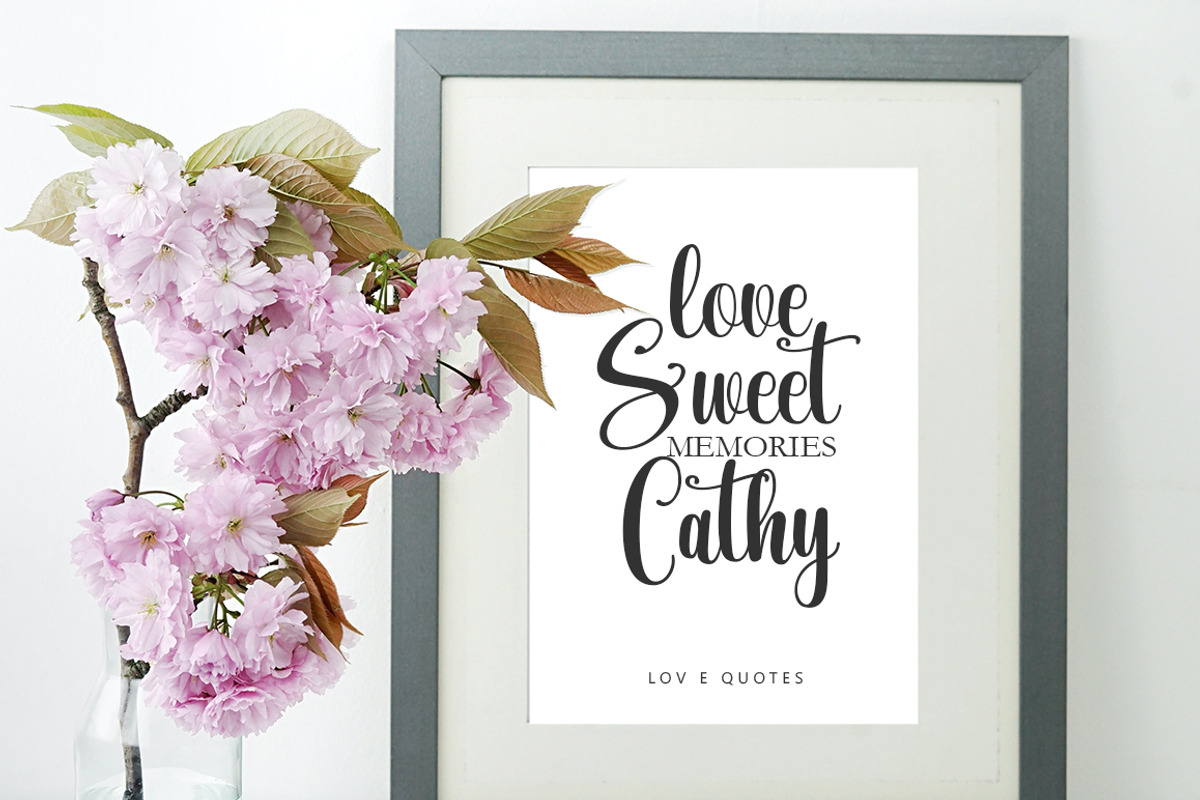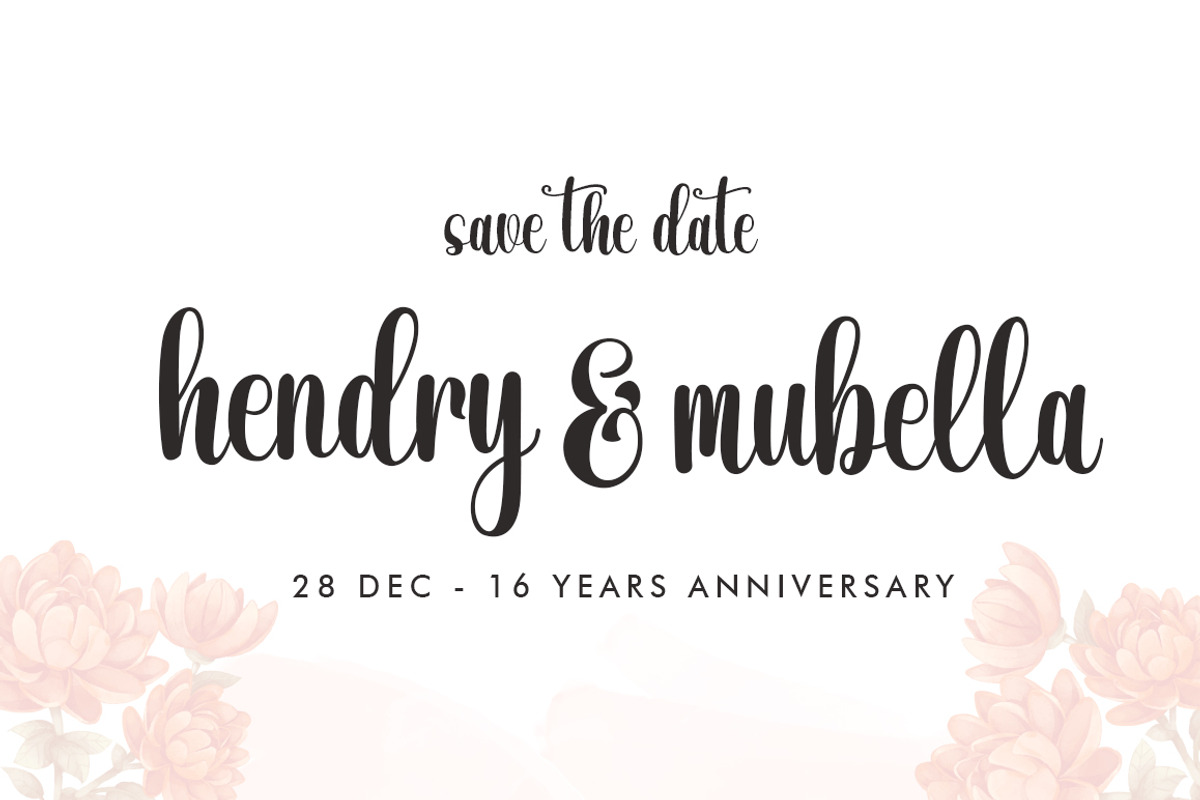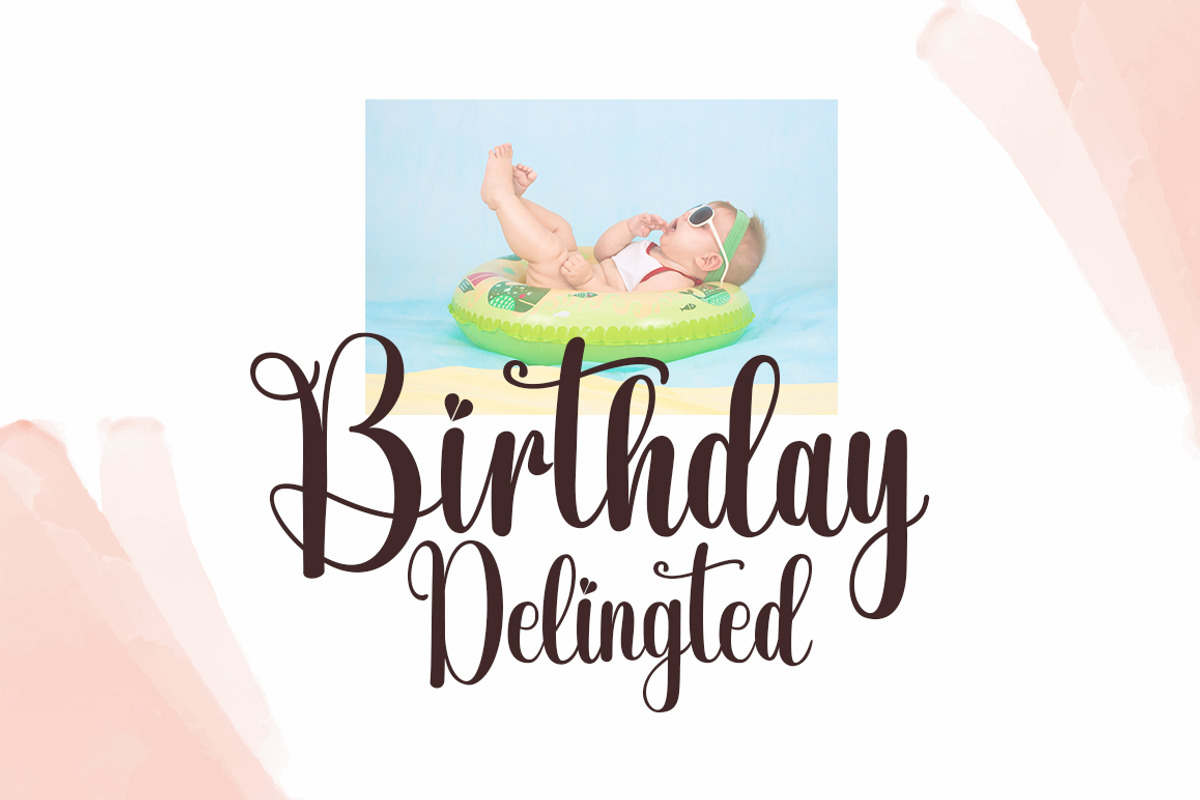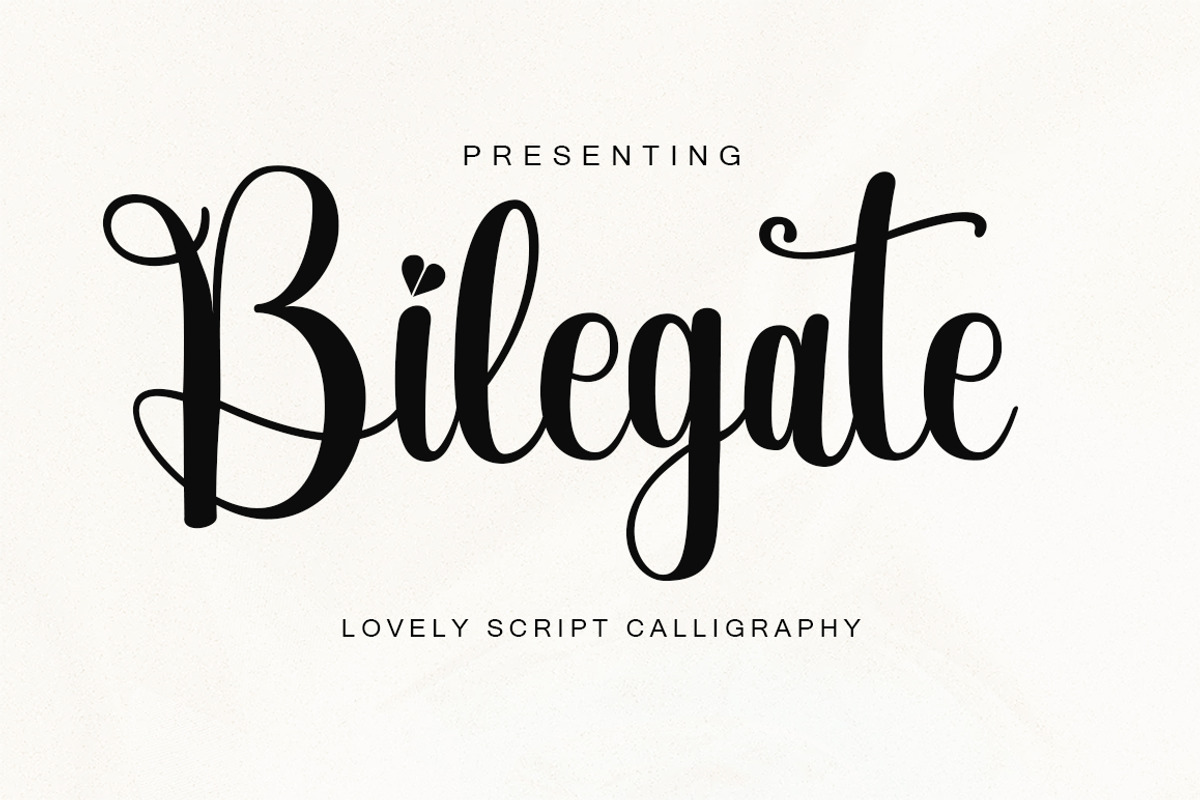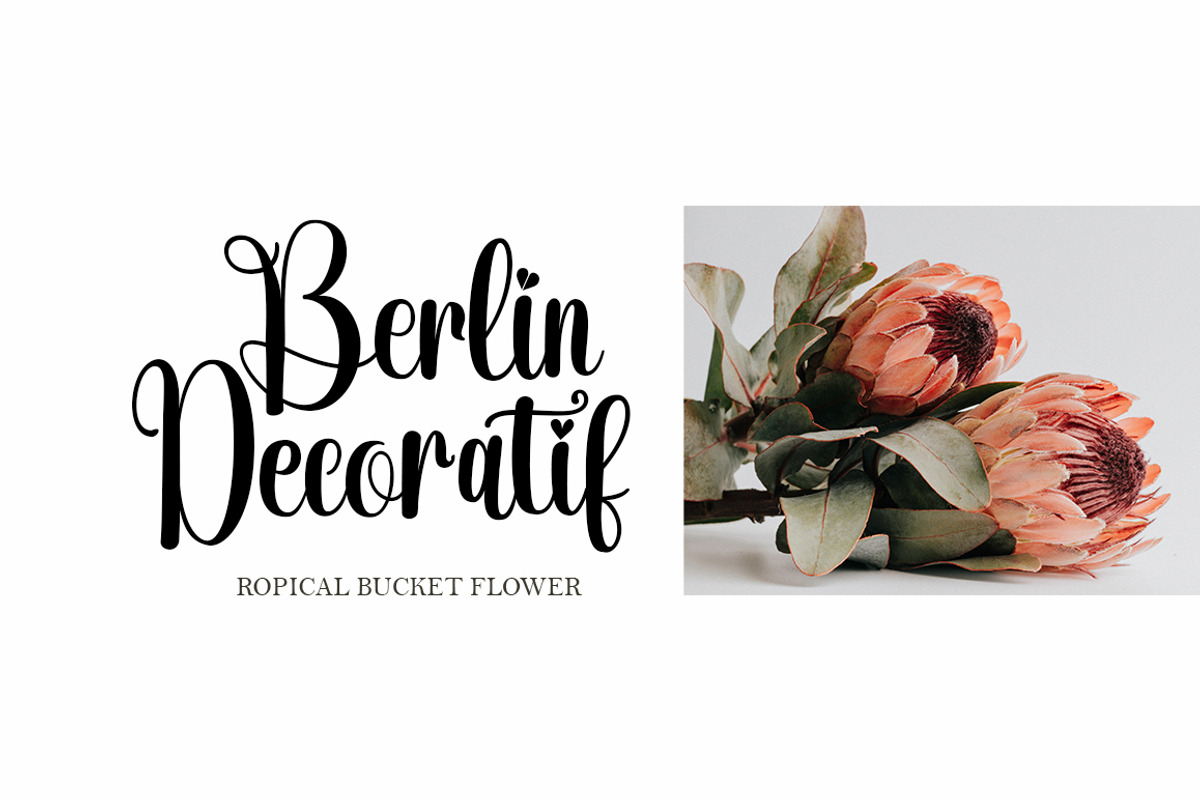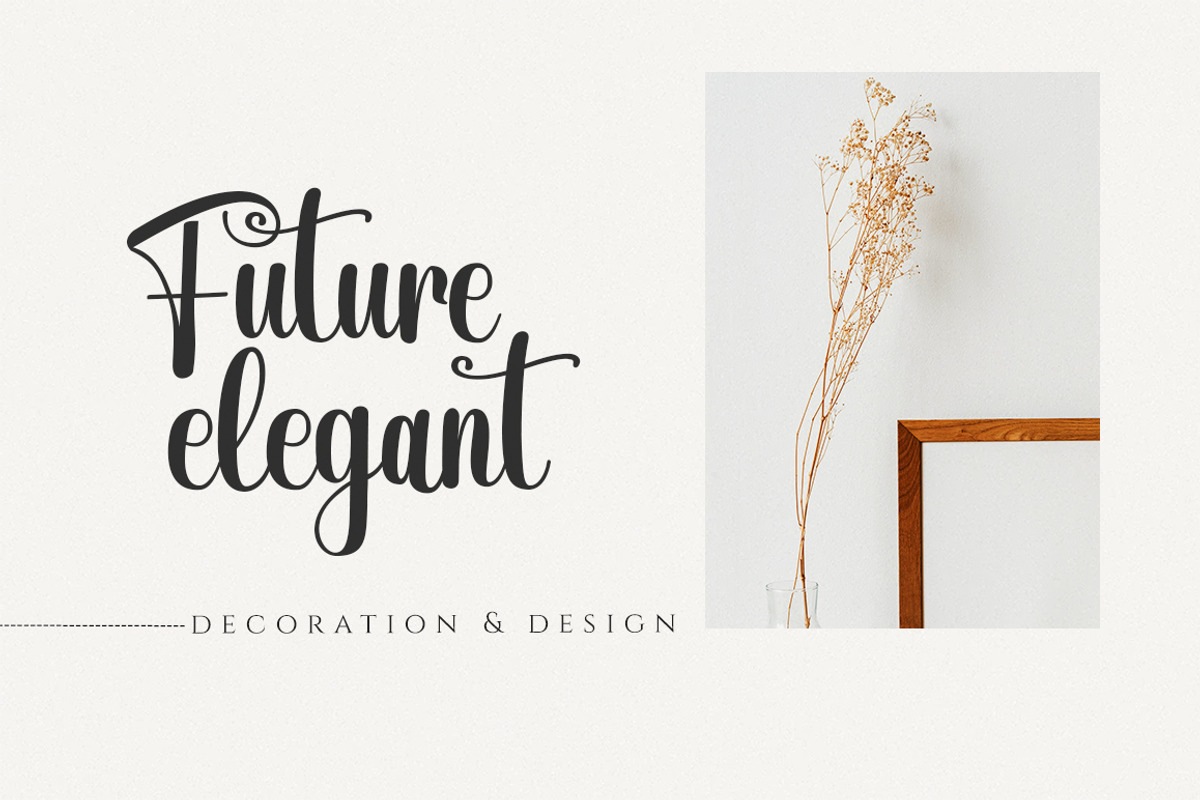
Bilegate
Bilegate is to be perfect for logos, branding, greetings, social media themes and wedding invitation designs. It is also a great typeface for titles due to its smooth design and eye-catching appearance.